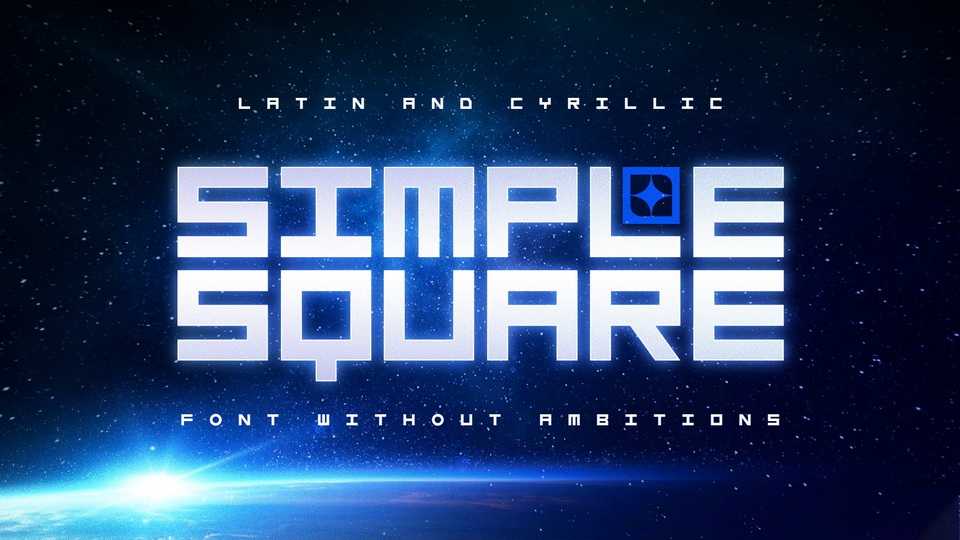
Download ST Simple Square font, a simple typeface without any ambitions. ST Simple Square is based on simple square geometry it has retro futuristic flow.
Designer: Alexander Shimanov